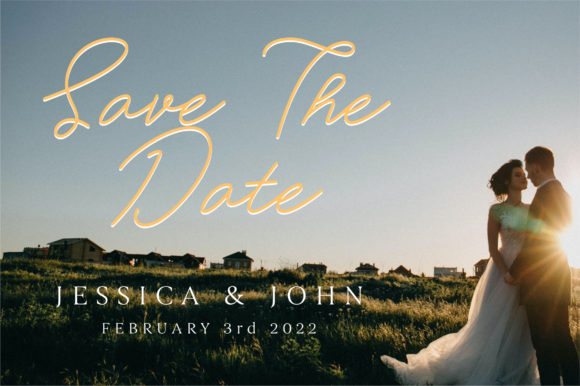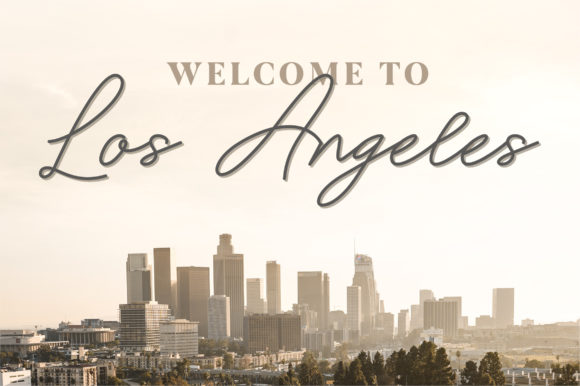
Emma Watson Font
db-ku.com - Script & Handwritten -- Emma Watson is a lovely handwriting font that can be used for packaging products, wedding invitations, flyers, brochures, greeting cards, and all aspects that require high-quality vibes. Use this font for your designs and explore its endless possibilities.